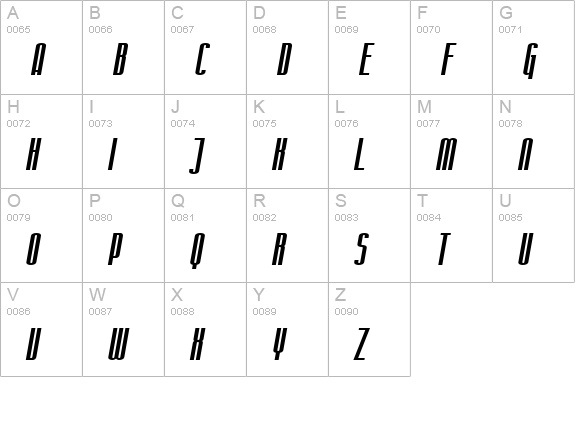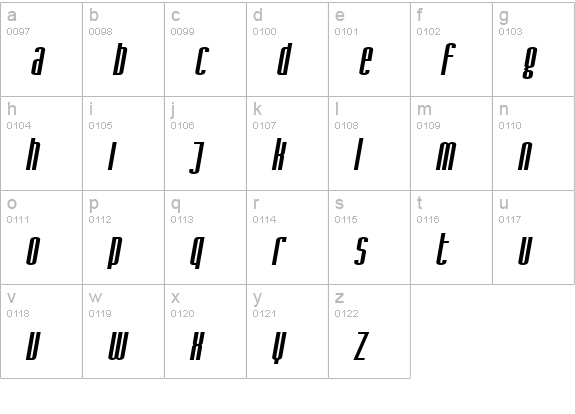
SF Iron Gothic Oblique Font Details
SF Iron Gothic Oblique is a distinctive, italic variant in the SF typeface family \xE2\x80\x94 well suited to design and typography projects.
SF Iron Gothic Oblique is a visually striking font that combines the elegance of Gothic architecture with a modern twist. Its bold, slanted letterforms exude a sense of strength and resilience, making it ideal for projects that require a bold and impactful statement. This unique font encapsulates the essence of ironwork found in Gothic structures, with its sharp lines and intricate detailing. The oblique angle adds a dynamic aspect to the letters, giving them a sense of motion and energy. Whether used in headlines, logos, posters, or branding materials, SF Iron Gothic Oblique is sure to captivate attention and leave a lasting impression. What makes SF Iron Gothic Oblique even more appealing is that it is completely free to download at FontsMarket.com. This means that designers and enthusiasts alike can access this remarkable font without any cost. Its availability on FontsMarket.com allows users to easily incorporate SF Iron Gothic Oblique into their projects with just a few clicks. With SF Iron Gothic Oblique, you can unleash your creativity and explore endless possibilities. Its versatility makes it suitable for a wide range of design applications, from edgy and industrial to futuristic and avant-garde. This font is a must-have for anyone looking to make a bold statement and leave a lasting impression. Download SF Iron Gothic Oblique for free at FontsMarket.com and embark on a creative journey that will elevate your designs to new heights. Don't miss out on this opportunity to add a touch of Gothic elegance and modernity to your projects. Get your hands on SF Iron Gothic Oblique today and unlock a world of design possibilities!